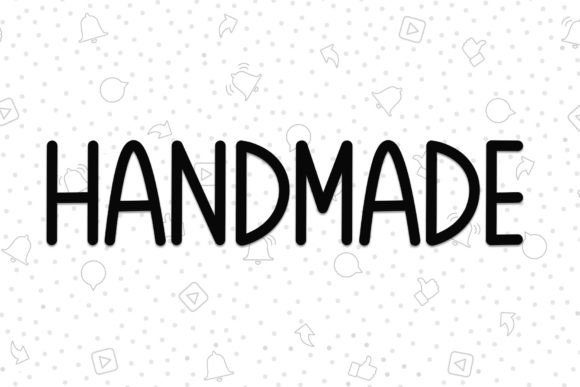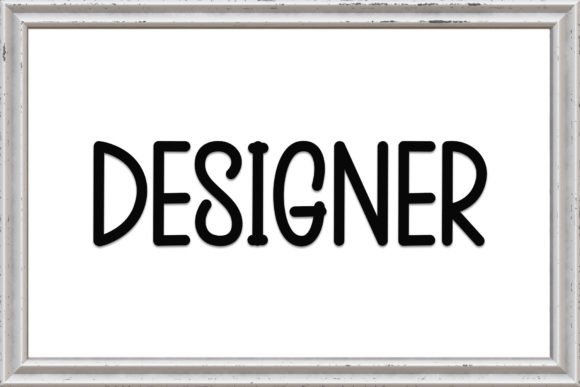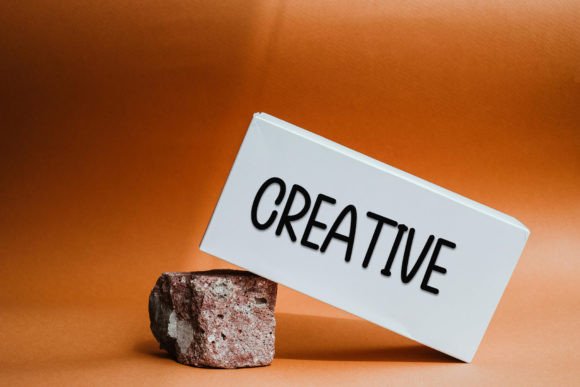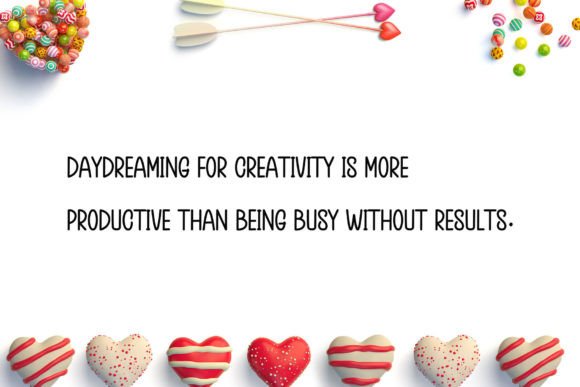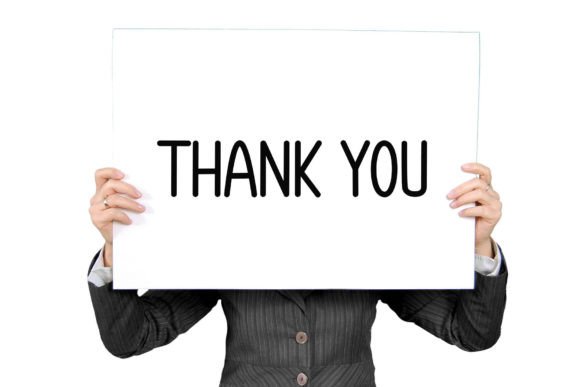
Discover the Best Teacher Font: Elevate Your Designs with Elegance and Class
Are you a designer or crafter looking for the perfect font to add a touch of sophistication to your projects? Look no further than the Best Teacher Font, a trendy handwritten font that exudes a contemporary atmosphere and impeccable form. Inspired by timeless classic calligraphy, this font is sure to elevate your designs and leave a lasting impression.
The Inspiration Behind Best Teacher Font
The Best Teacher Font is a masterful blend of traditional calligraphy and modern design. Its creators drew inspiration from the classic scripts of the past, infusing them with a fresh and contemporary twist. The result is a font that feels both nostalgic and cutting-edge, perfect for designers who want to add a touch of elegance to their work.
Key Features of Best Teacher Font
• Trendy Handwritten Style: The Best Teacher Font boasts a beautiful, handwritten style that adds a personal touch to any design project.
• Contemporary Atmosphere: With its clean lines and modern aesthetic, this font is perfect for designers who want to create a fresh and contemporary look.
• Impeccable Form: The Best Teacher Font features impeccable form, with each letter carefully crafted to ensure a beautiful and cohesive look.
• Classic Calligraphy Inspiration: Inspired by timeless classic calligraphy, this font brings a touch of sophistication and elegance to any design project.
What Makes Best Teacher Font Stand Out
So, what sets the Best Teacher Font apart from other fonts on the market? Here are just a few reasons why designers and crafters are falling in love with this beautiful font:
• Versatility: The Best Teacher Font is incredibly versatile, making it perfect for a wide range of design projects, from wedding invitations and branding materials to social media graphics and more.
• Elegance: With its classic calligraphy inspiration, this font adds a touch of elegance and sophistication to any design project.
• Easy to Read: Despite its elegant style, the Best Teacher Font is easy to read, making it perfect for designs that require a clear and concise message.
Using Best Teacher Font in Your Design Projects
So, how can you use the Best Teacher Font in your design projects? Here are a few ideas to get you started:
• Wedding Invitations: Add a touch of elegance to your wedding invitations with the Best Teacher Font, perfect for formal and informal designs alike.
• Branding Materials: Use the Best Teacher Font to create beautiful branding materials, such as business cards, letterheads, and more.
• Social Media Graphics: Elevate your social media graphics with the Best Teacher Font, perfect for creating eye-catching posts and stories.
Tips for Getting the Most Out of Best Teacher Font
To get the most out of the Best Teacher Font, here are a few tips to keep in mind:
• Experiment with Different Sizes: Don’t be afraid to experiment with different font sizes to find the perfect fit for your design project.
• Pair with Other Fonts: The Best Teacher Font pairs beautifully with other fonts, so don’t be afraid to get creative and try out different combinations.
• Use in Combination with Images: The Best Teacher Font looks stunning when used in combination with images, so consider adding a visual element to your design project.
In conclusion, the Best Teacher Font is a truly exceptional font that is sure to elevate your design projects and leave a lasting impression. With its trendy handwritten style, contemporary atmosphere, and impeccable form, this font is perfect for designers and crafters who want to add a touch of elegance and sophistication to their work. So why wait? Download the Best Teacher Font today and start creating beautiful designs that will stand out from the crowd!